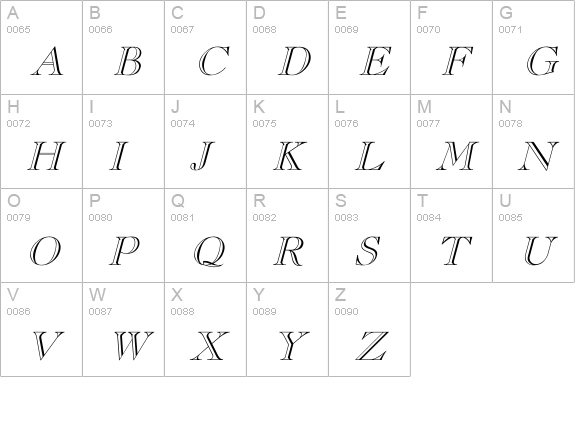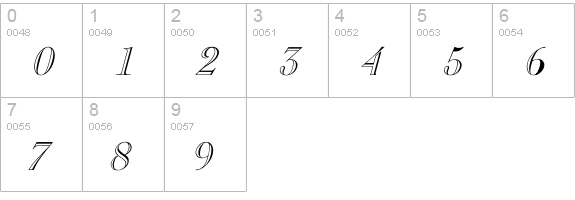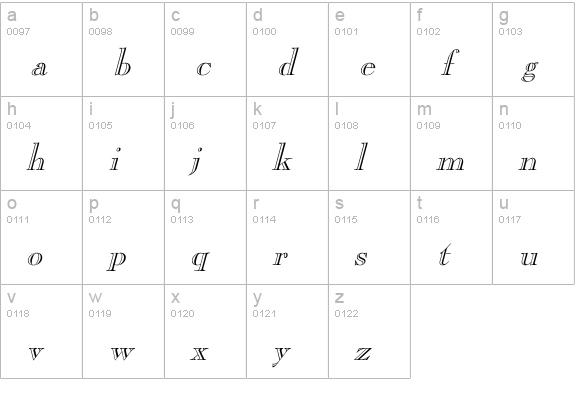
CaslonOpenFace Italic Font Details
CaslonOpenFace Italic is a distinctive, italic variant in the CaslonOpenFace typeface family \xE2\x80\x94 well suited to design and typography projects.
Caslon Open Face Italic is a classic and elegant font that exudes sophistication and grace. With its delicate slanted letterforms and intricate details, this typeface is perfect for adding a touch of refinement to any design project. Whether used for invitations, branding, or editorial design, Caslon Open Face Italic lends a sense of timeless beauty and charm. The free version of Caslon Open Face Italic is available for download at FontsMarket.com, making it accessible to all designers and creatives looking to elevate their work with this exquisite font. Embrace the beauty and versatility of Caslon Open Face Italic in your next project and watch as it effortlessly adds a touch of class and sophistication.